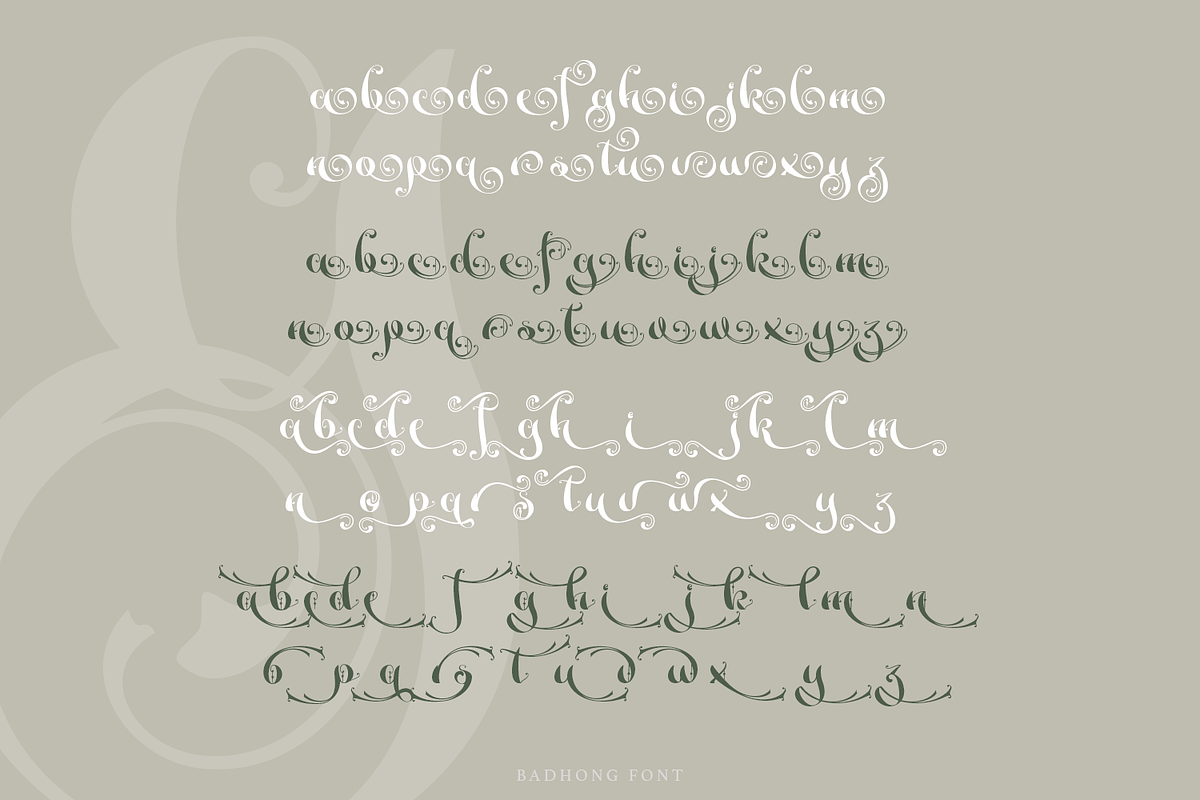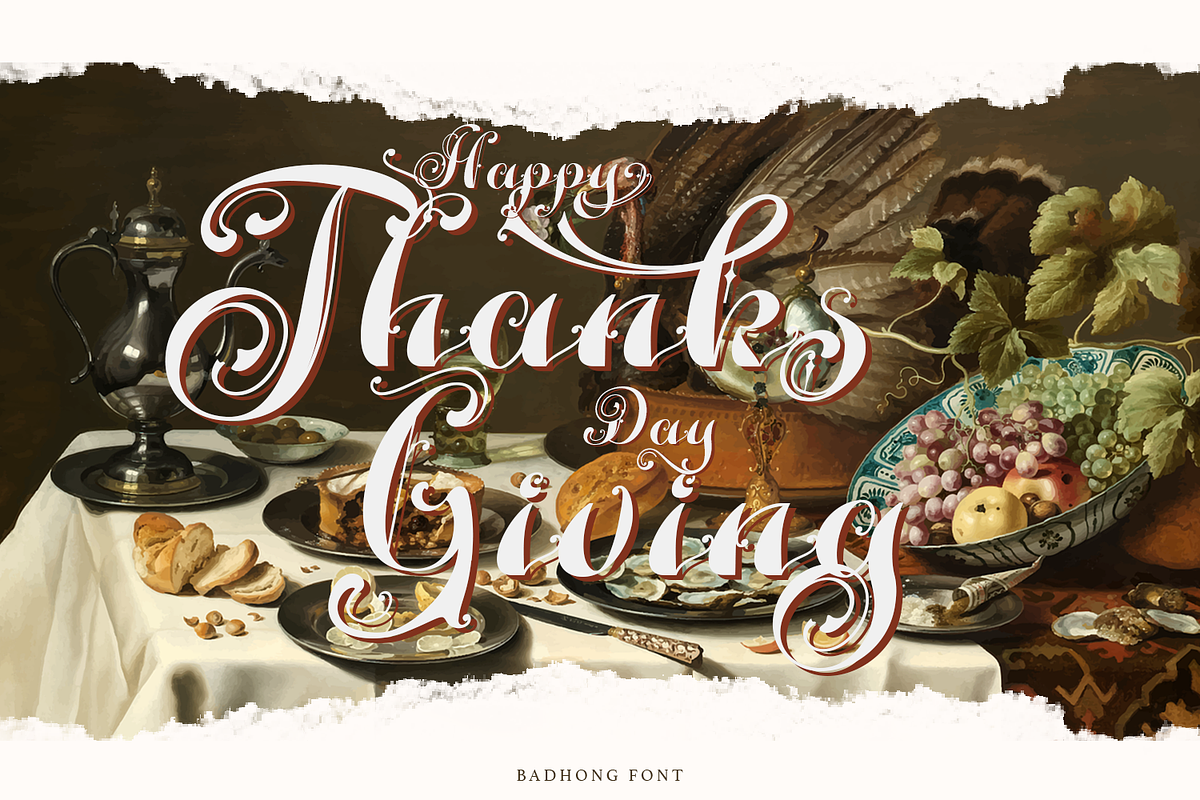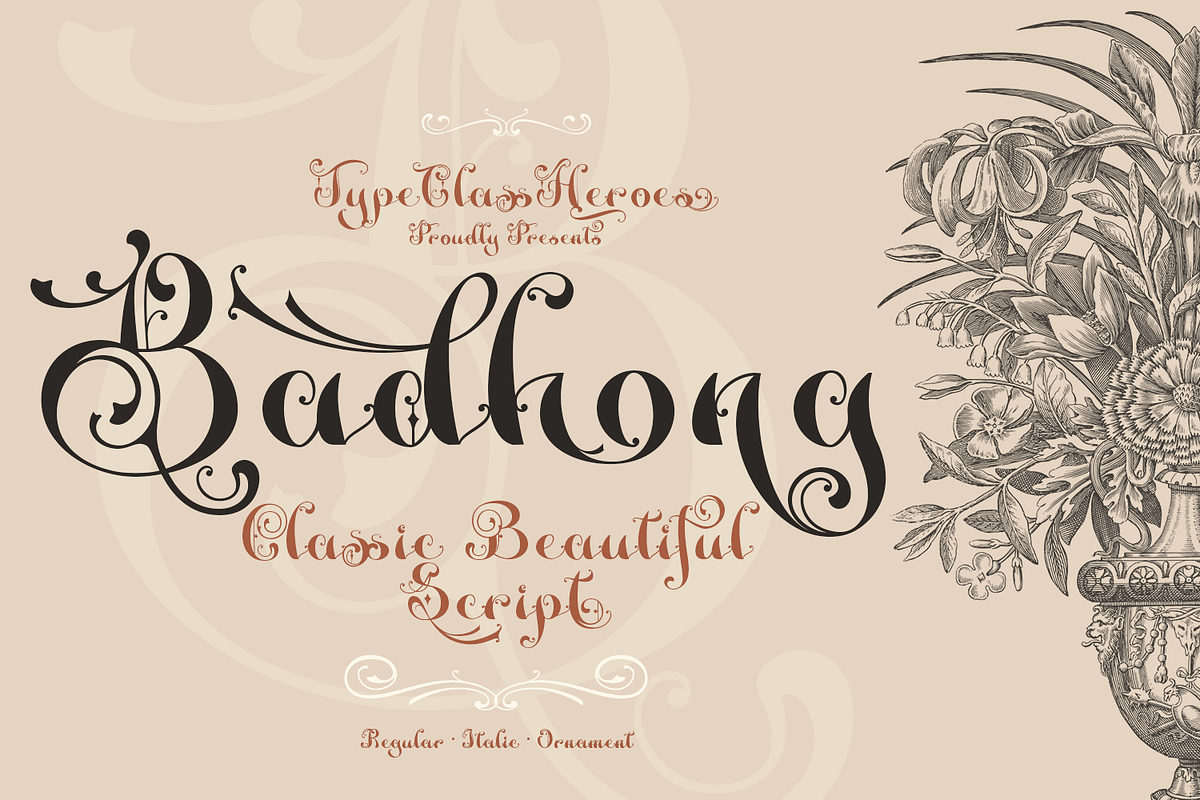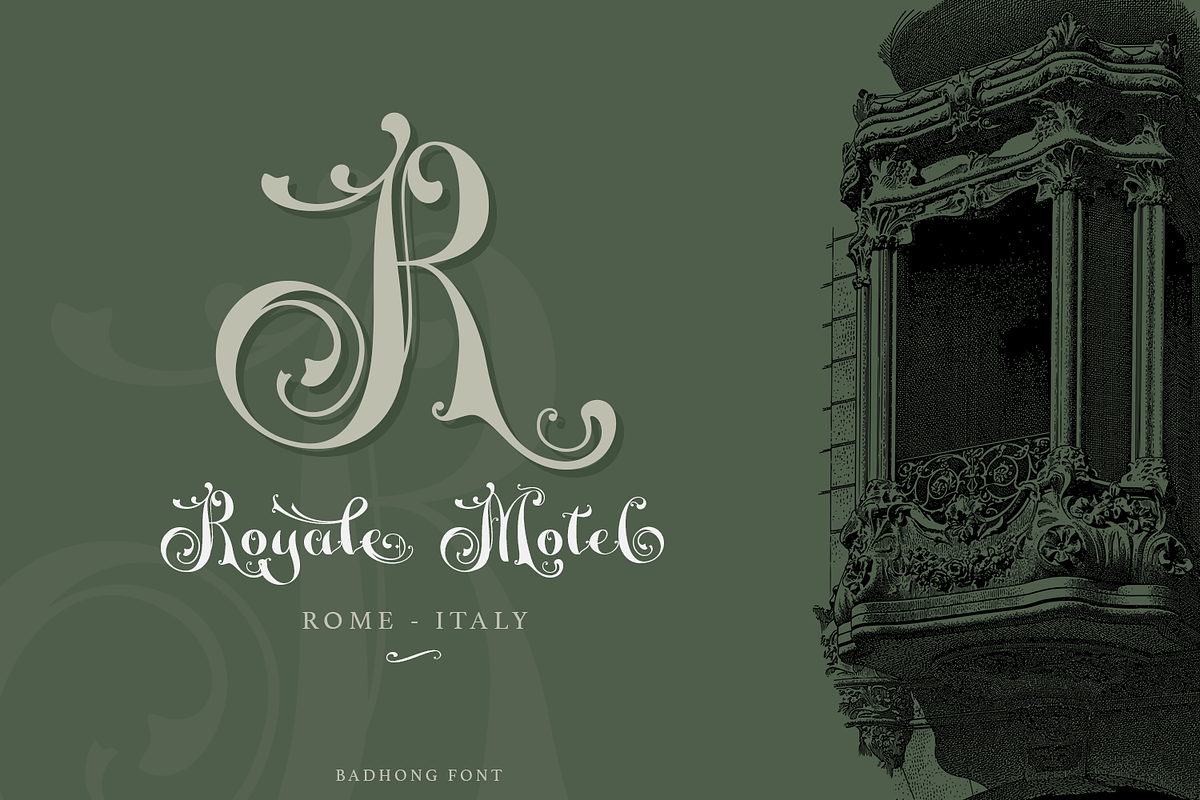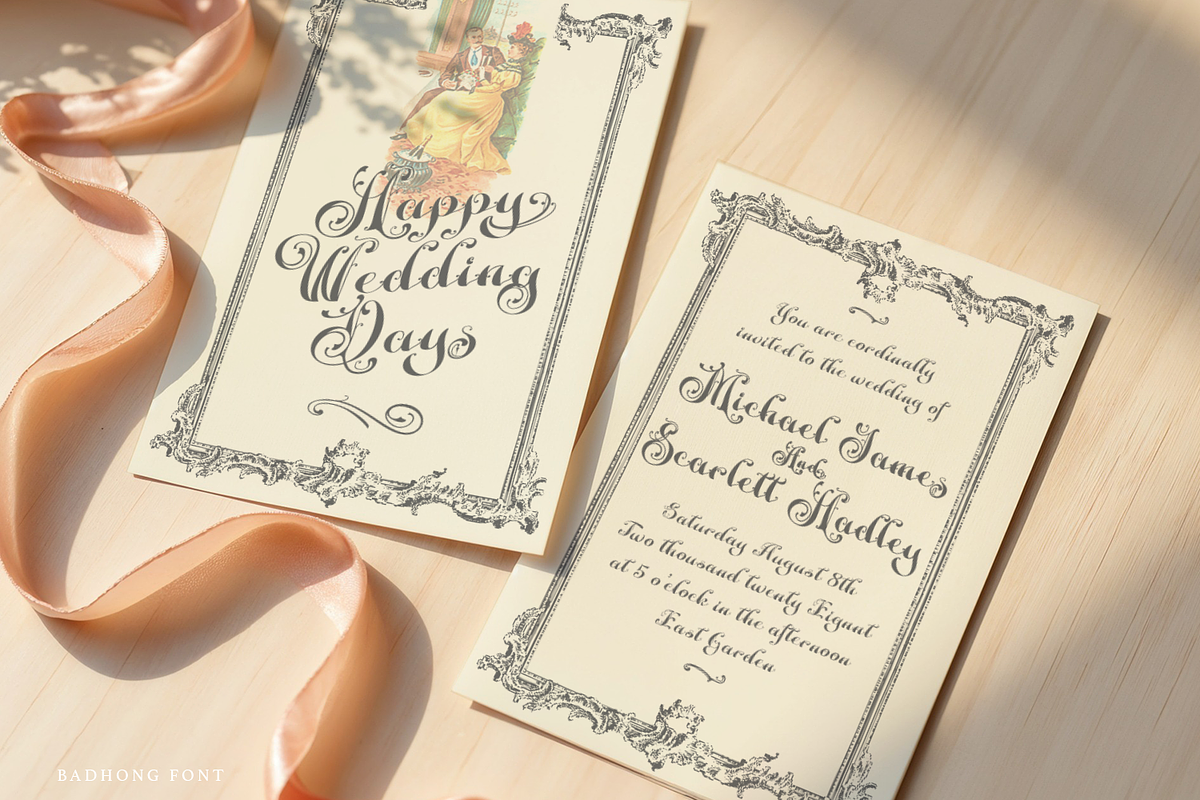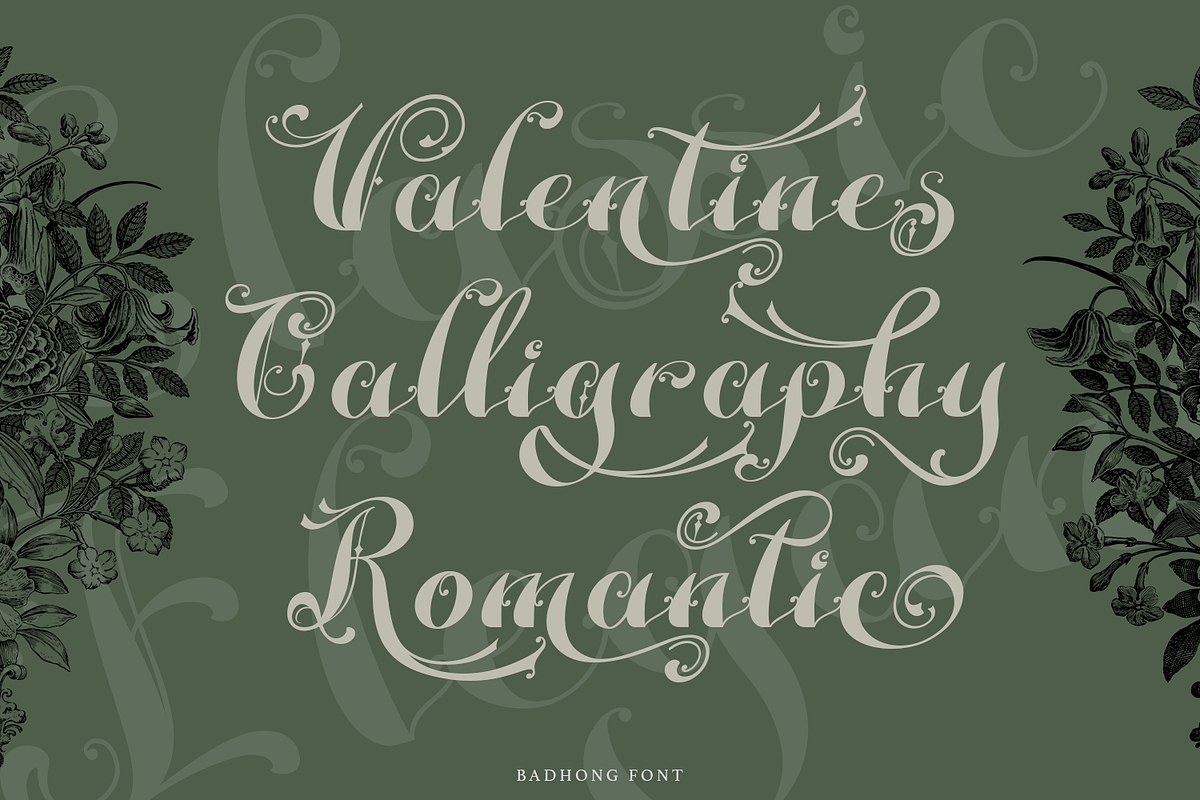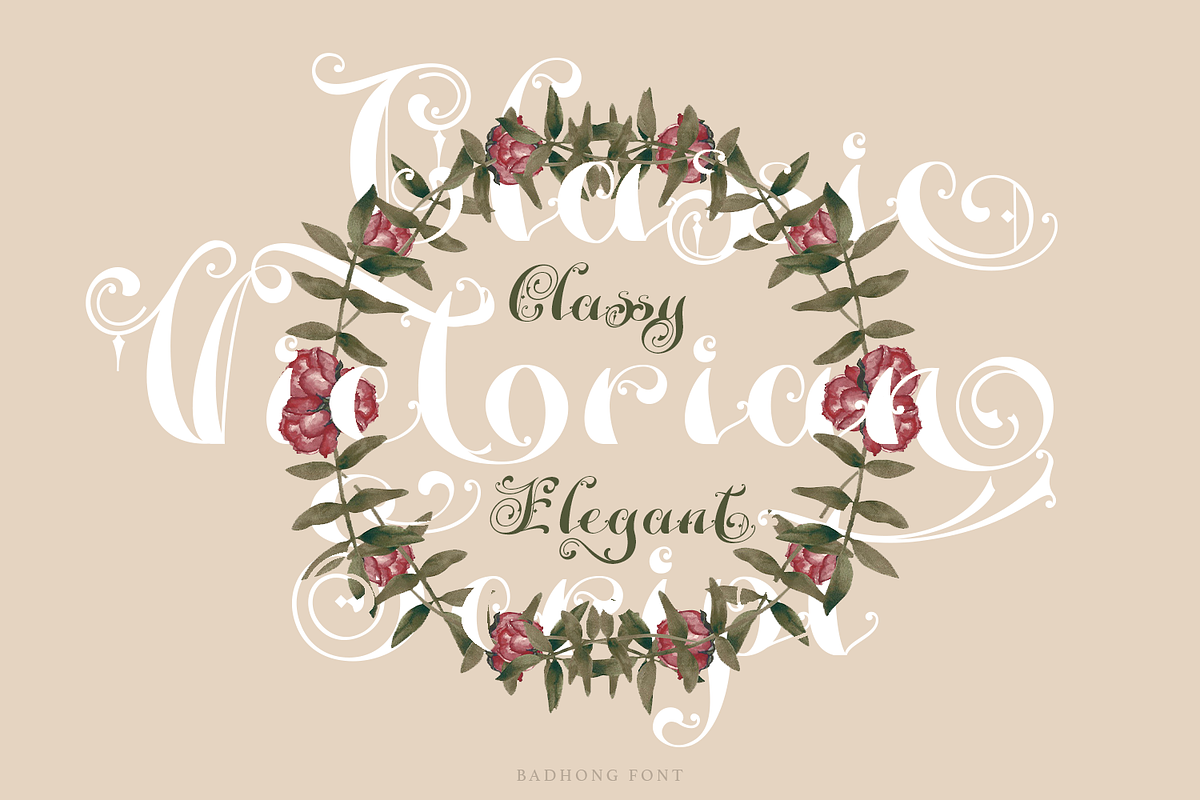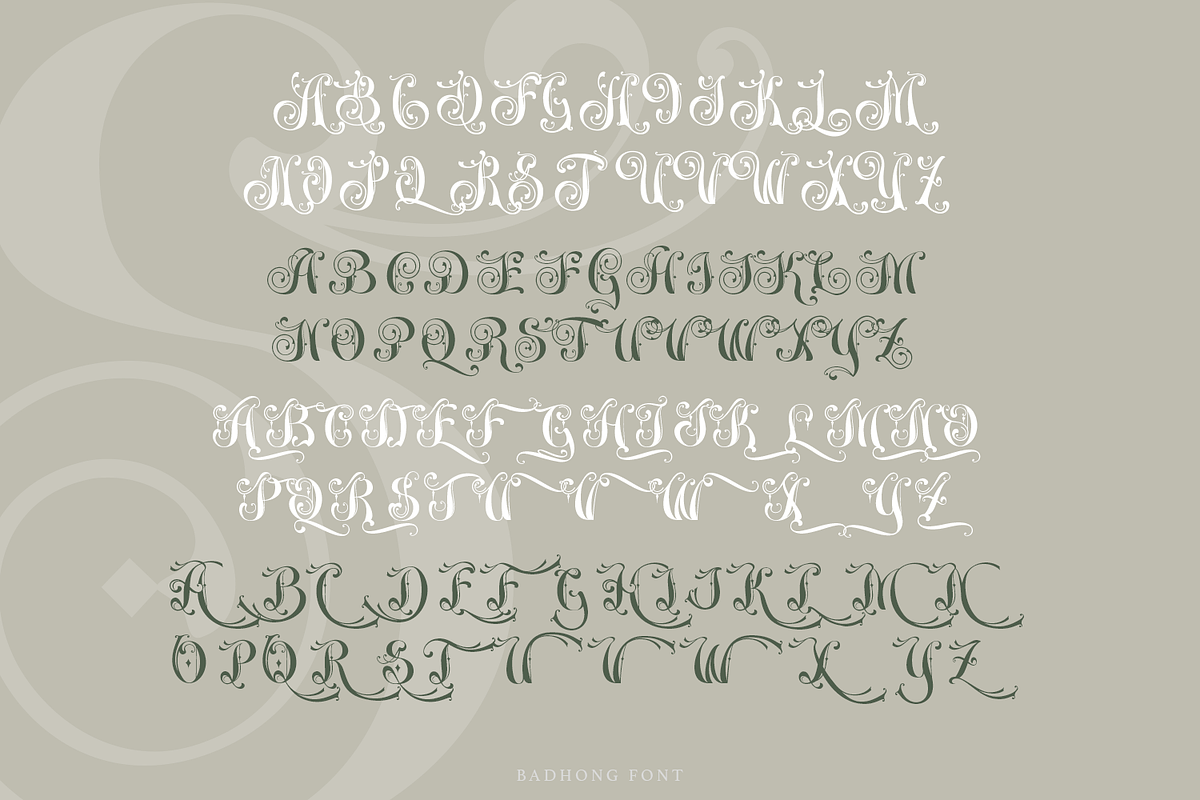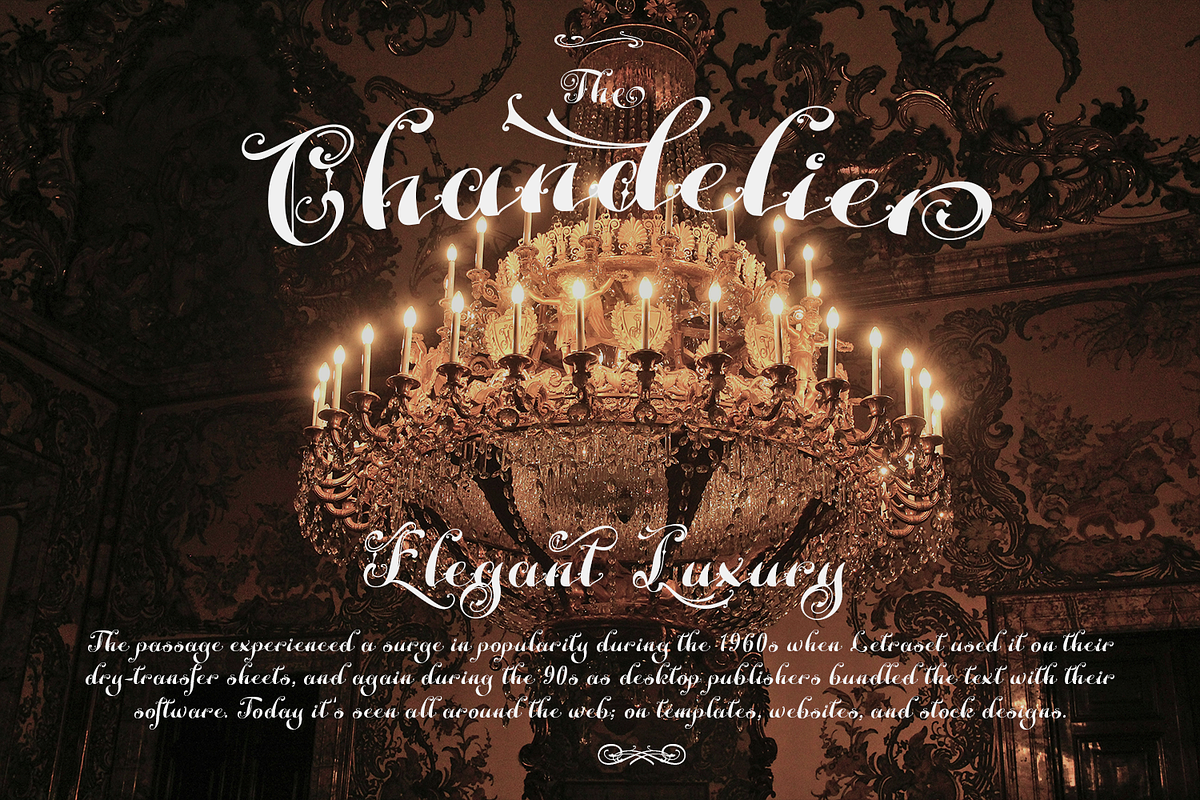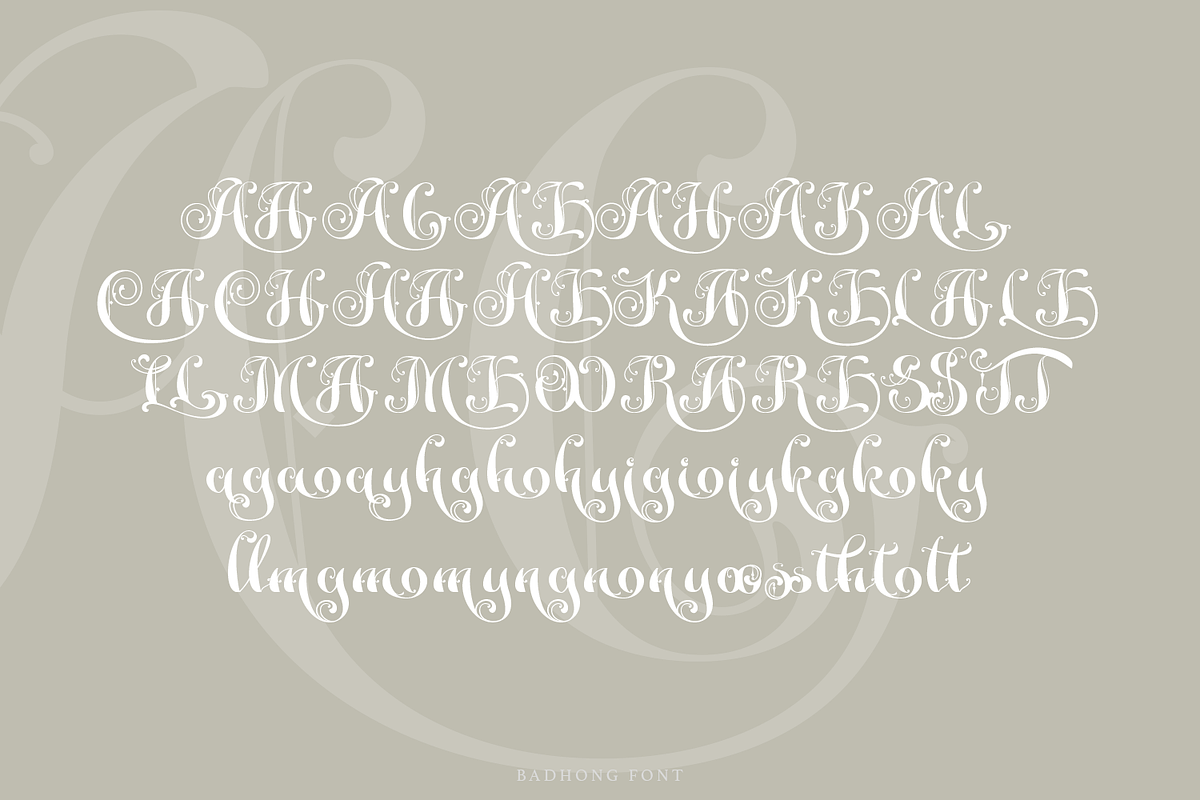
Badhong Classic Script
Badhong is a classic decorative script and this typeface features a variety of beautiful alternates and ligatures to give your projects a refined look. Its clean, feminine, and glamorous style. The classic style is perfect to be applied in various formal forms such as invitations, labels, restaurant menus, logos, fashion, make up, stationery, novels, magazines, books, greeting / wedding cards, packaging, labels or any type of advertising purpose makes it ideal for whether you’re creating digital content or printed materials.